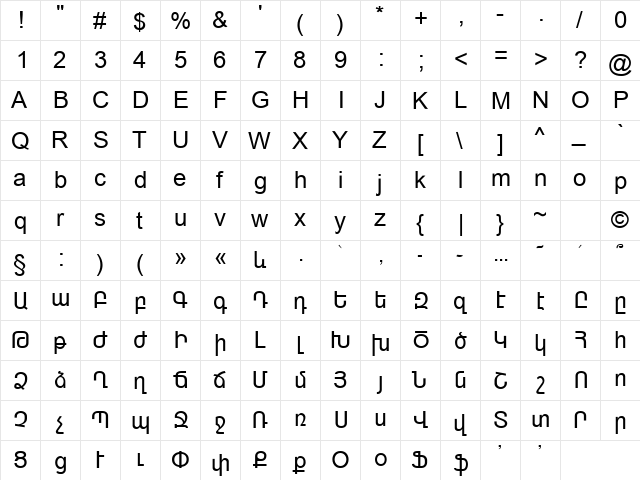
Arial Armenian Regular
Design Context for Arial Armenian Typeface
Arial Armenian takes a measured approach to typography — its balanced proportions and neutral character make it a reliable workhorse for both digital and print work.